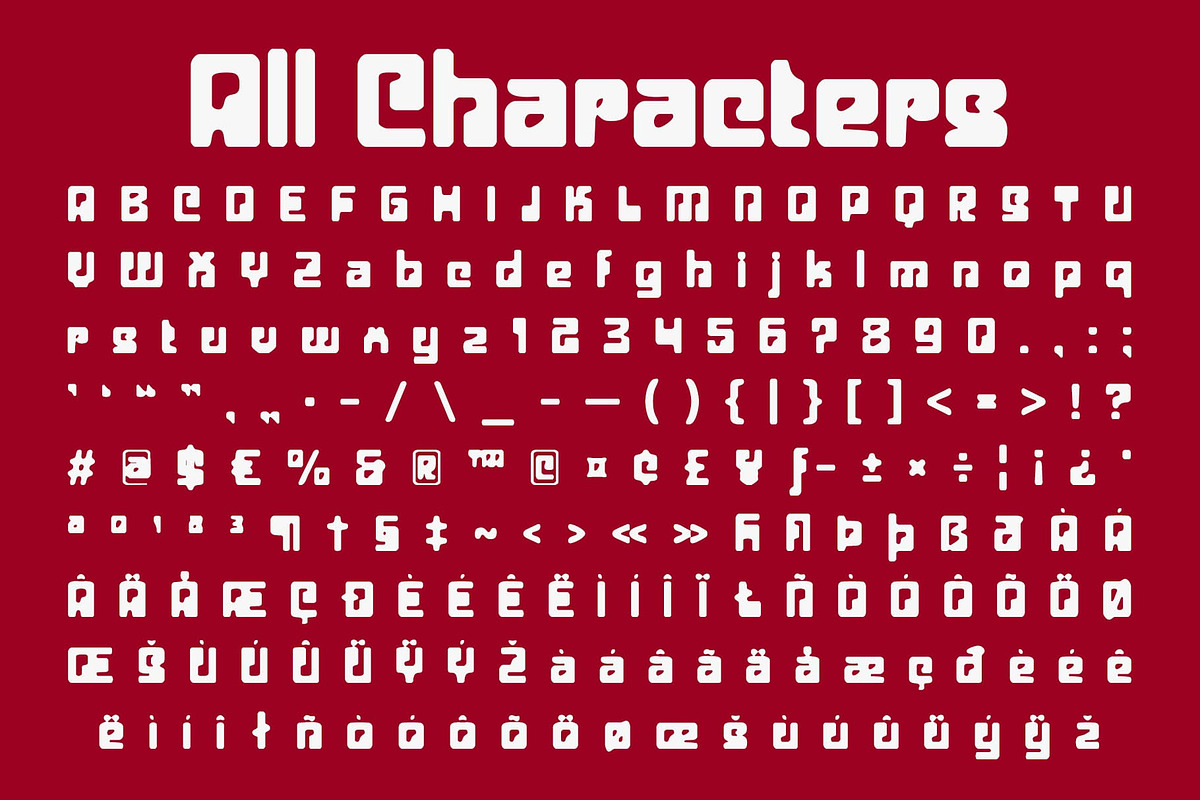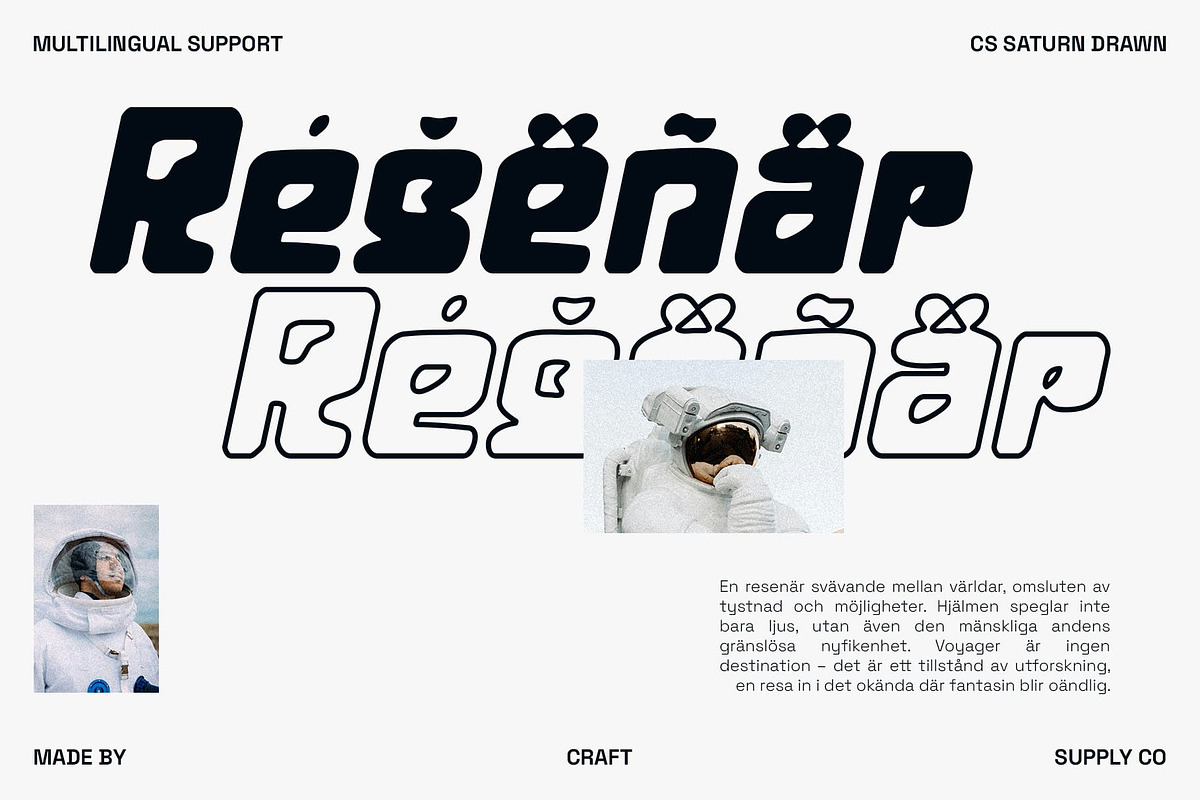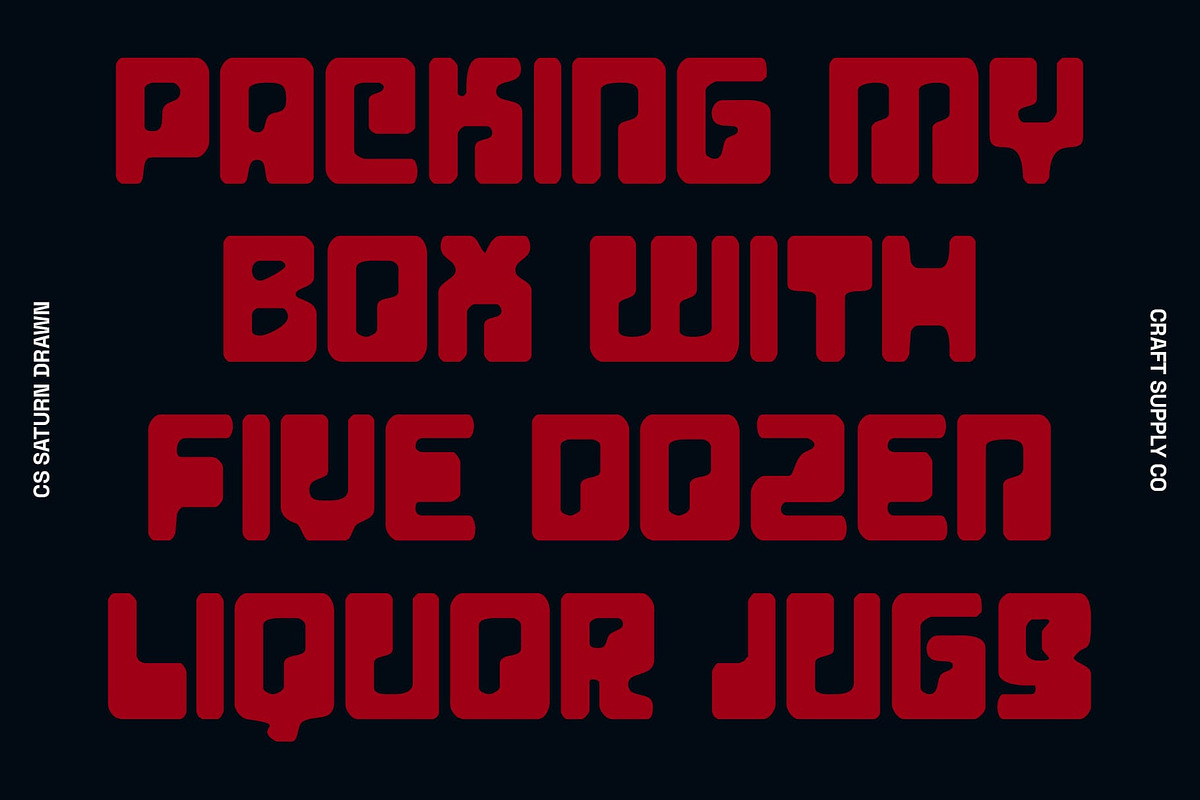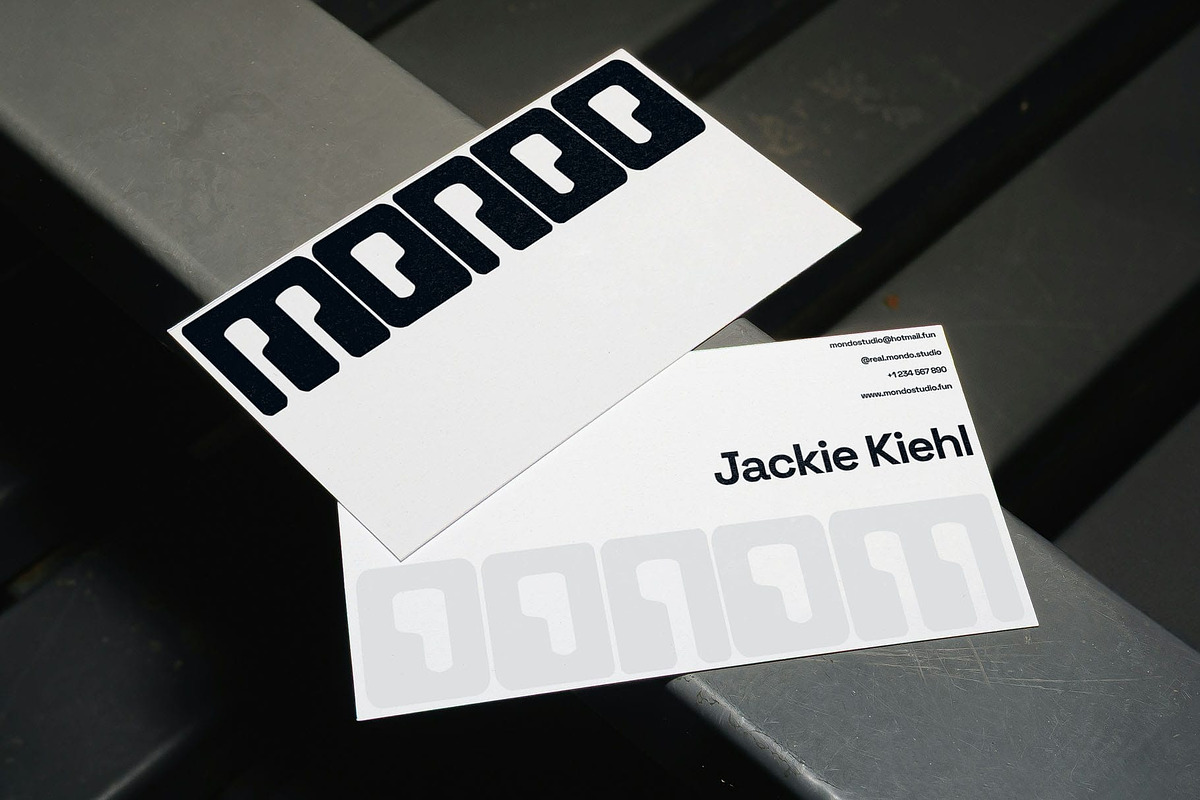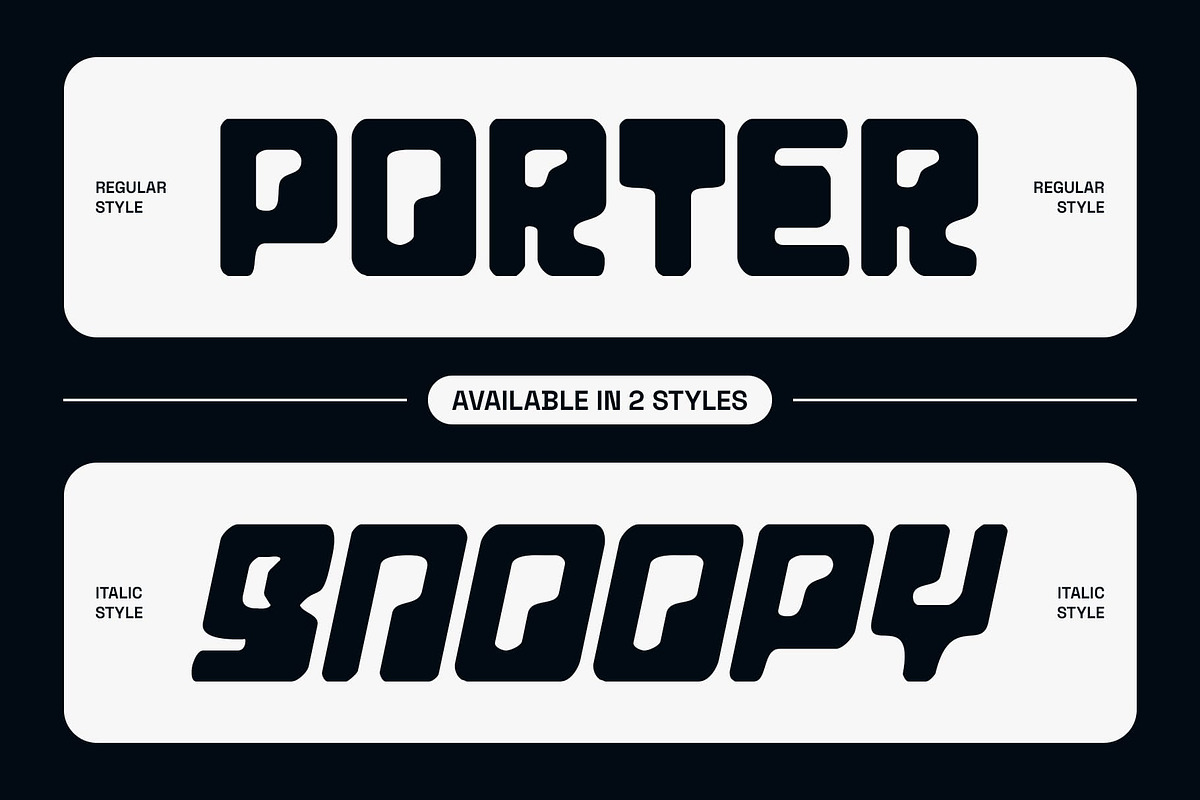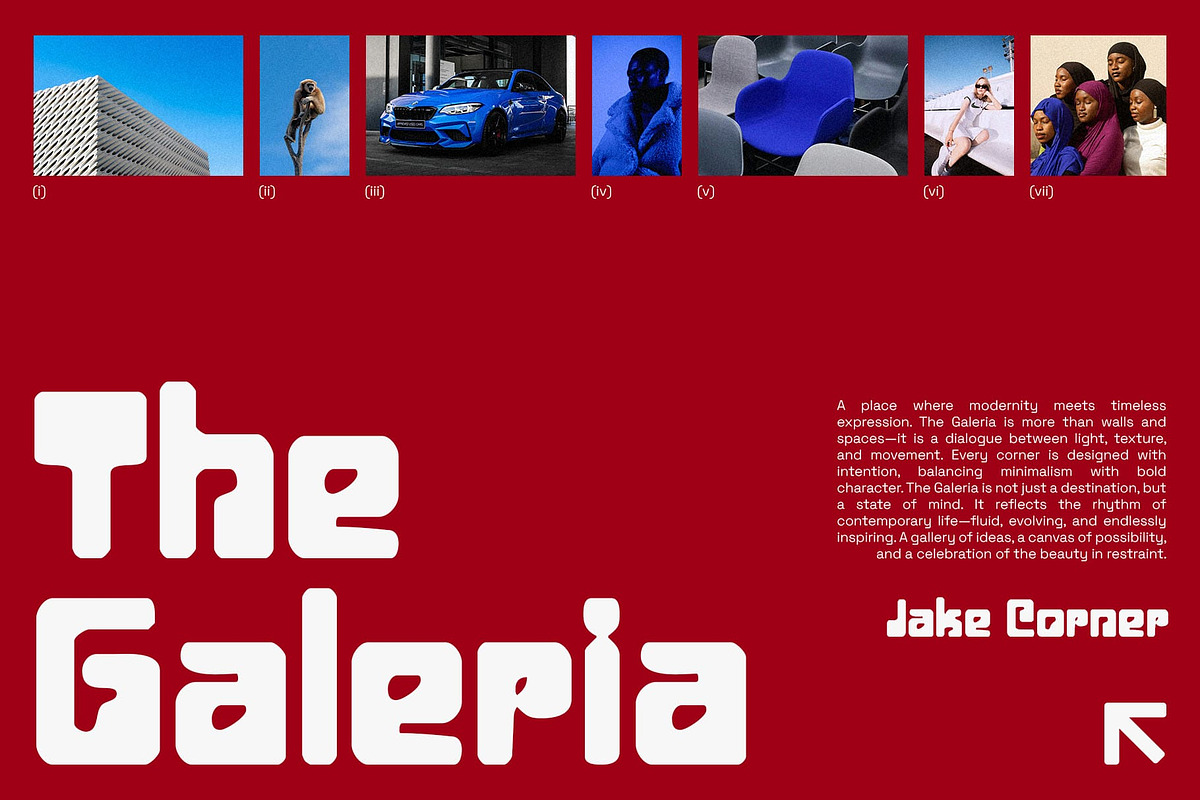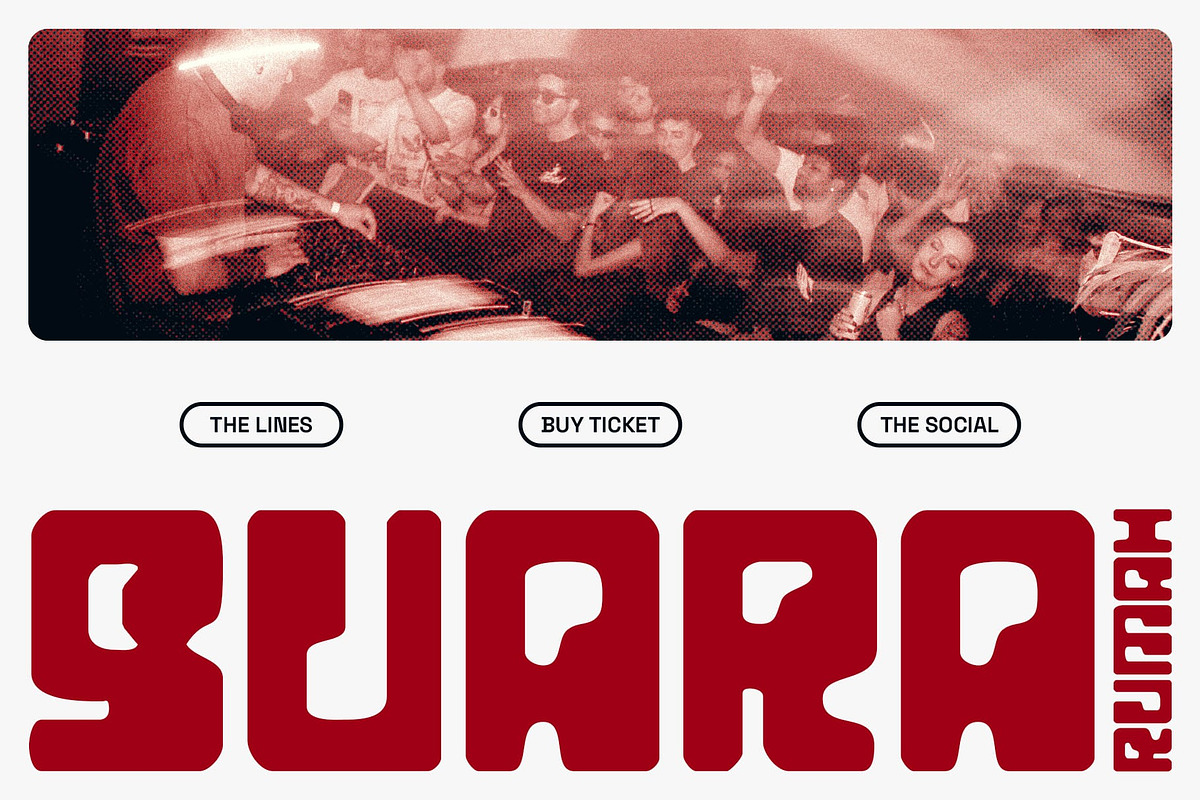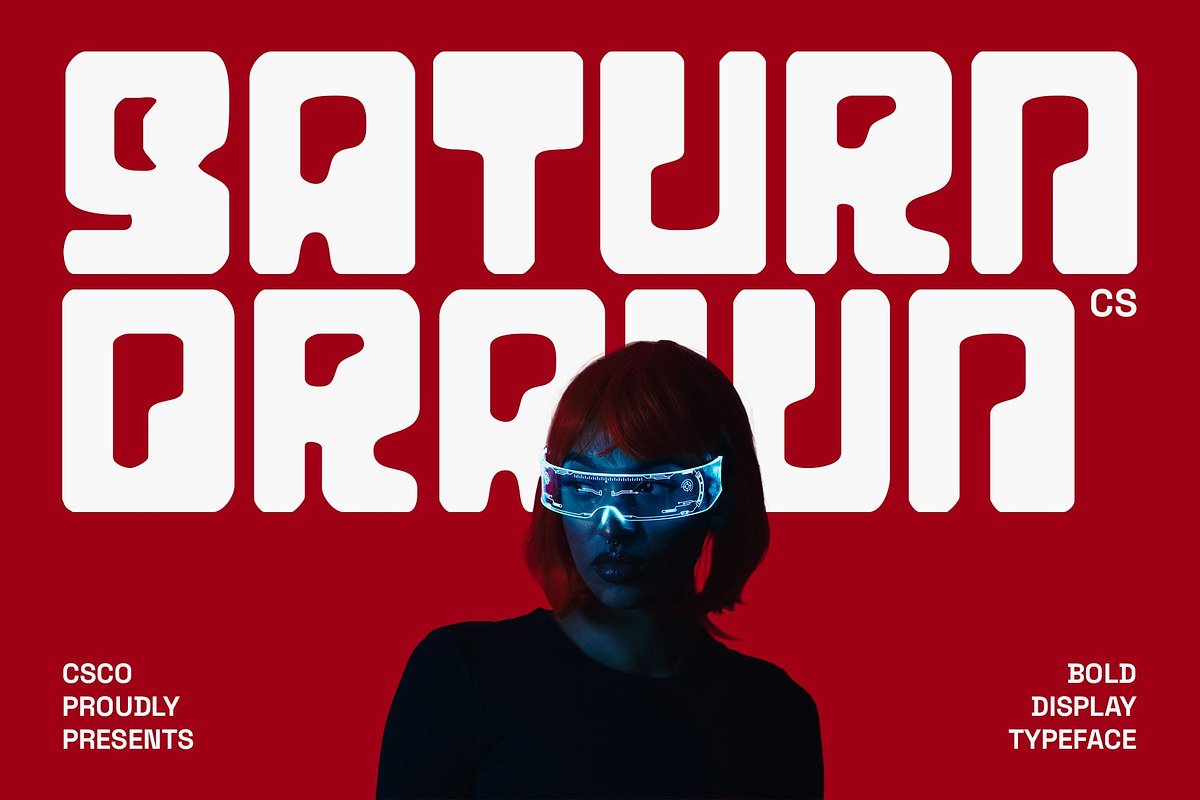
CS Saturn Drawn
CS Saturn Drawn – Techno Inspired Sans Serif: Futuristic Energy with a Handmade Edge and Drawn Character
Bold Shapes for Maximum Impact This is a striking sans serif display font that commands attention with its bold, techno inspired design. Its sharp geometry and futuristic presence make it a natural fit for projects that demand strength, clarity, and modern appeal.
Hand-Drawn Texture for Distinct Personality Unlike typical digital techno fonts, introduces a drawn texture that softens its rigidity while adding artistic depth. This handcrafted touch enhances its futuristic energy, making the font not only bold but also uniquely expressive.
Futuristic Style with Modern Energy Designed to exude innovation and dynamism, channels the bold spirit of modern technology while maintaining human warmth through its hand-drawn detail. This balance creates a visual identity that feels both cutting-edge and approachable.
Perfect for Branding, Logos, and Posters Whether used for standout logos, futuristic posters, or strong branding identities, delivers power and character. Its combination of techno precision and handmade artistry ensures that any design leaves a memorable and impactful impression.